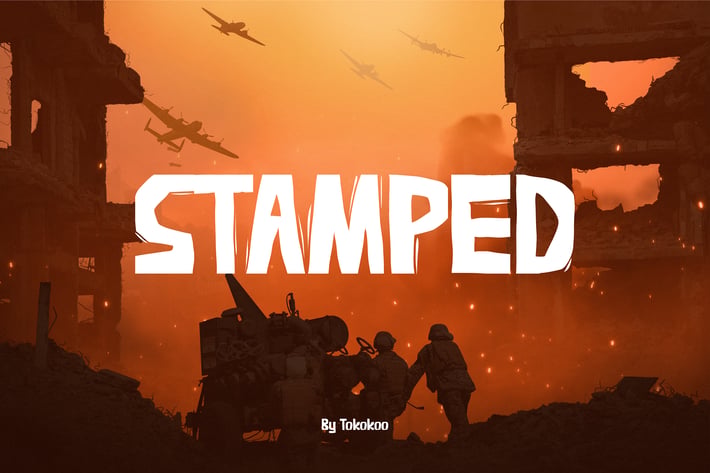
STAMPED
STAMPED is a long-tail typographic solution crafted for bold, high-impact visuals rooted in activism and resistance. Its gritty, imperfect letterforms feature rough edges and stamped textures that evoke the aesthetic of protest, rebellion, and grassroots strength. With a bold, weathered feel and strong geometric base, this expressive display typeface channels raw energy and power. Its distressed details and blocky form give it a commanding presence—ideal for visual narratives where strength, urgency, and authenticity matter.
Whether used in editorial covers, advocacy campaigns, protest merchandise, or motivational poster designs, STAMPED injects your message with intensity. It’s designed for those who want to challenge the status quo, make noise, and visually empower through typography. If you’re branding a social movement, launching a bold startup, or simply amplifying a message of resilience, STAMPED makes sure every letter stands tall and unshaken.
Key Features
Gritty & Powerful Impression:
- Raw, distressed texture with visual punch
- Consistent weight and solid baseline for easy alignment
- Creates emotional resonance through rugged authenticity
Designed for Impact-Driven Projects:
- Perfect for posters, protest art, advocacy branding, zines, or campaign graphics
- Conveys strength, resilience, and urgency
- Works especially well in all caps for assertive tone